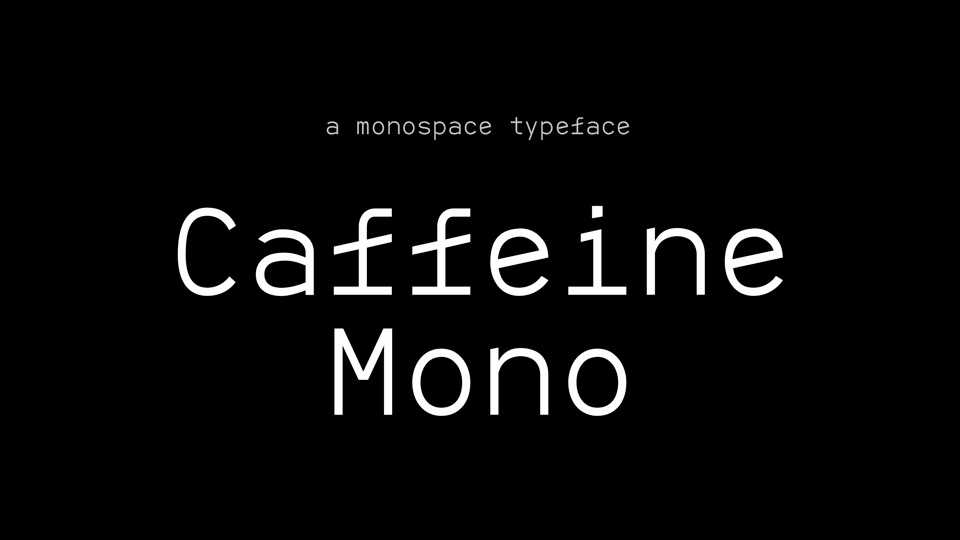
Download Caffeine Mono font, a monospaced typeface created for programming and tabular layout. Caffeine Mono has a modern look and retains its legibility at very small sizes.
Designer: Thomas David Gjertsen